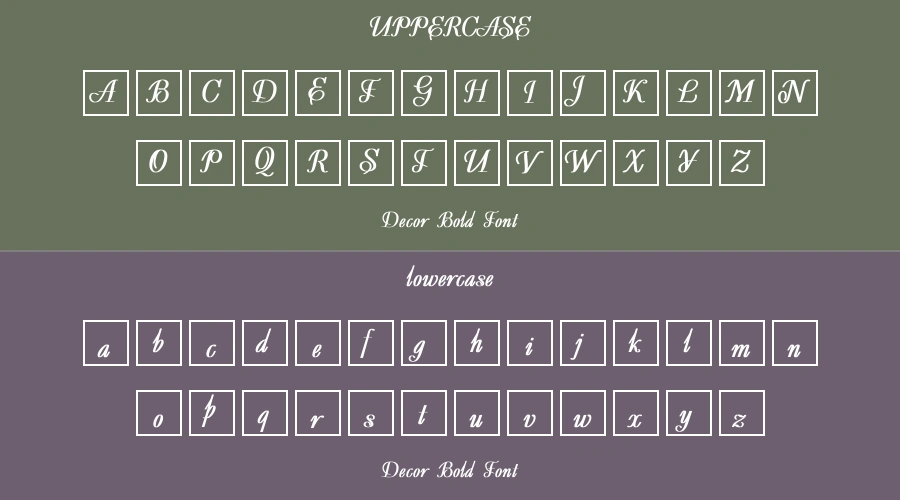
About Decor Bold Font
Decor Bold Font represents a sophisticated approach to type design, balancing rounded apexes with brand presence. Perfect for financial statements, this font family showcases impressive originality and creative potential throughout its character set. Designers appreciate its versatility and reliability.
Designers will appreciate nuanced touches including exaggerated serifs and decorative caps, adding sophistication to any project. These features become apparent in book chapters, where compatibility matters most. The careful treatment of bowl width and cultural context ensures optimal performance.